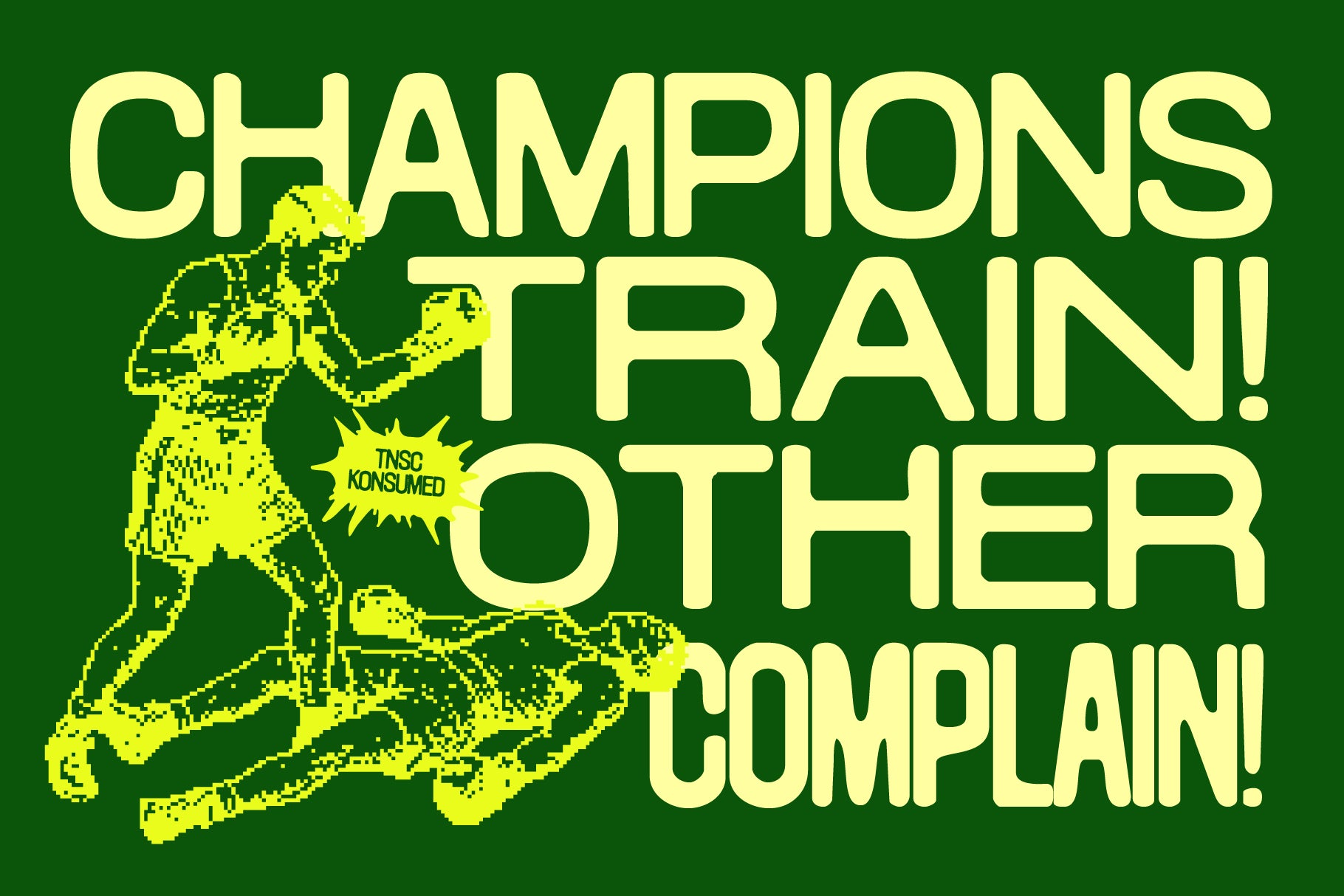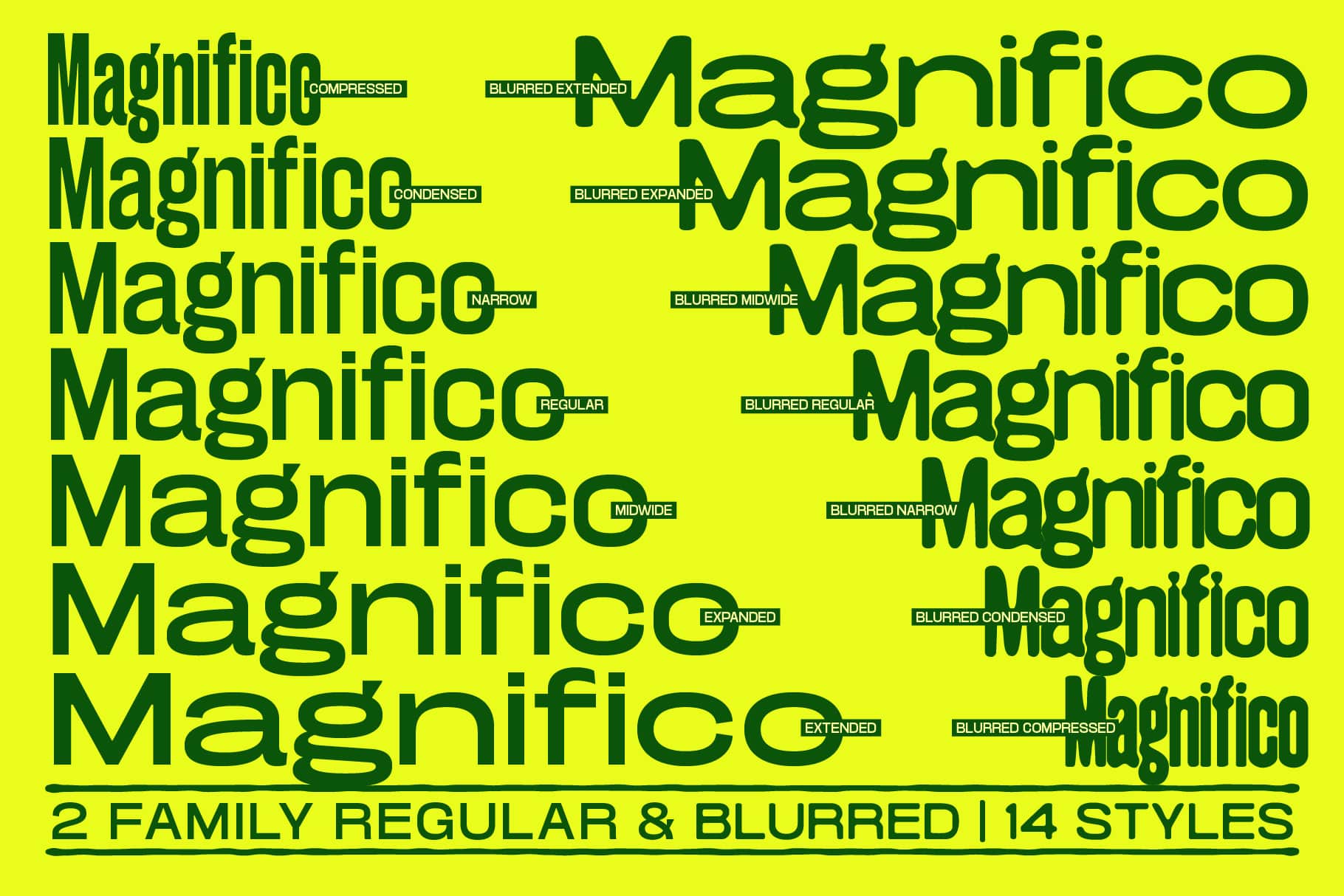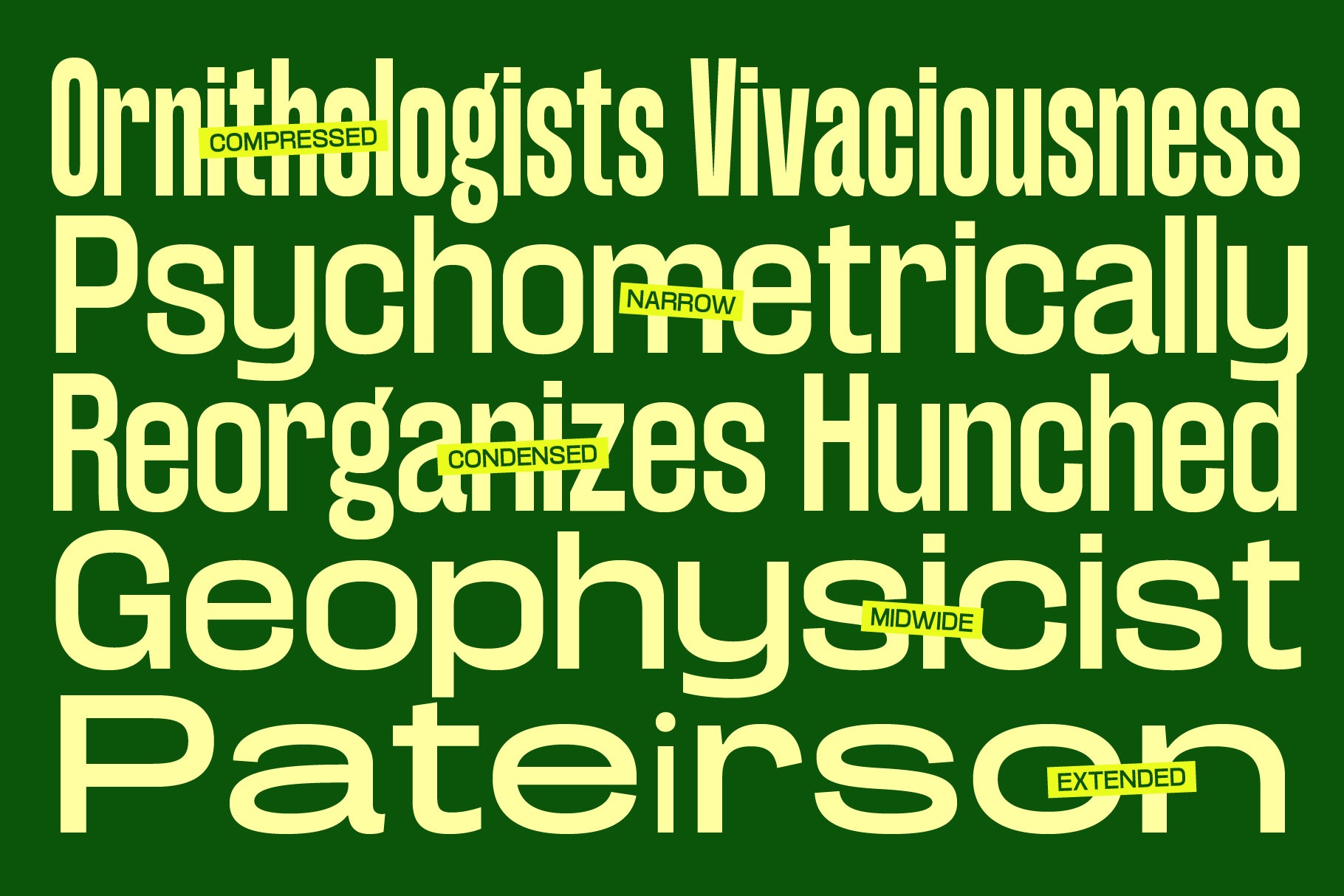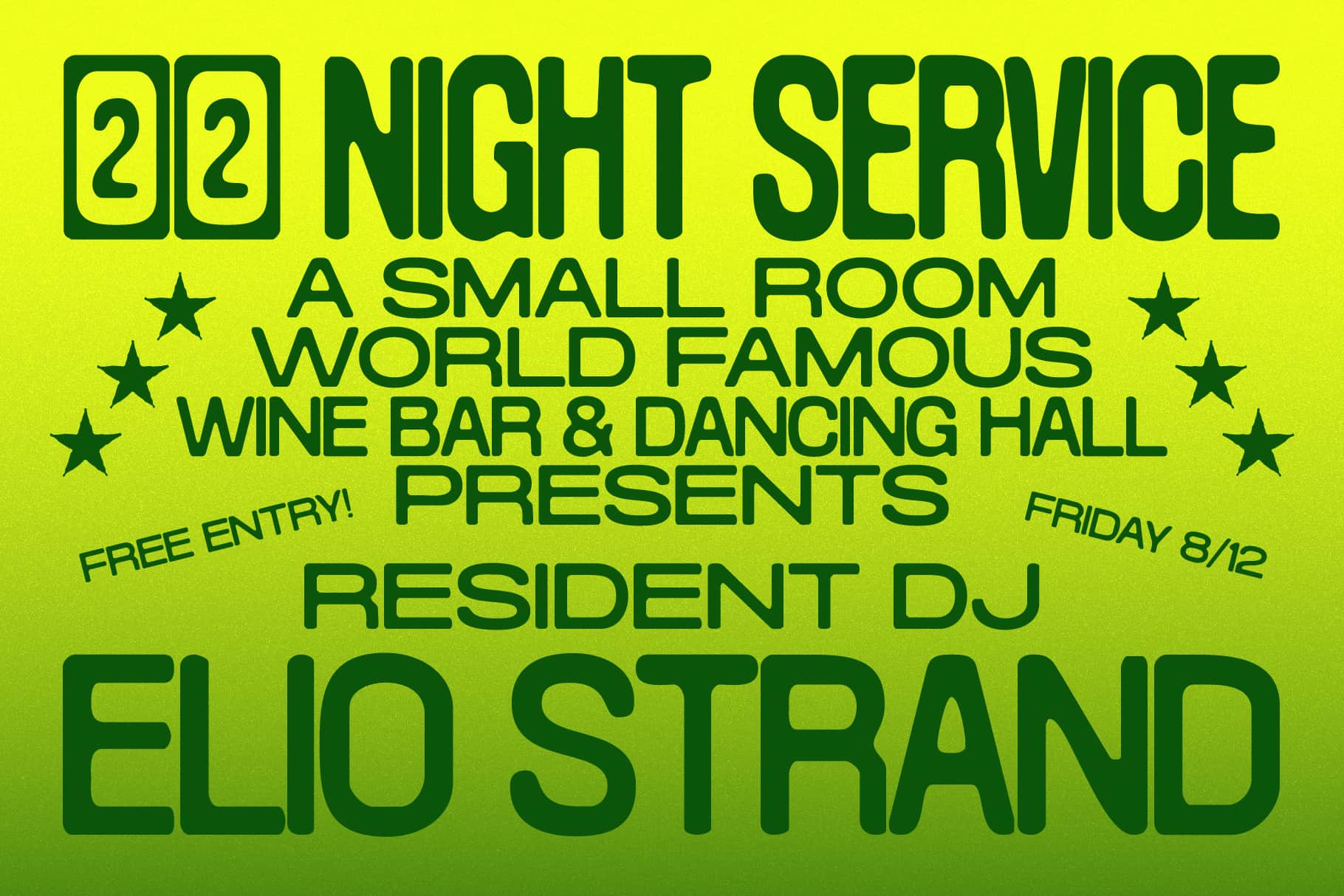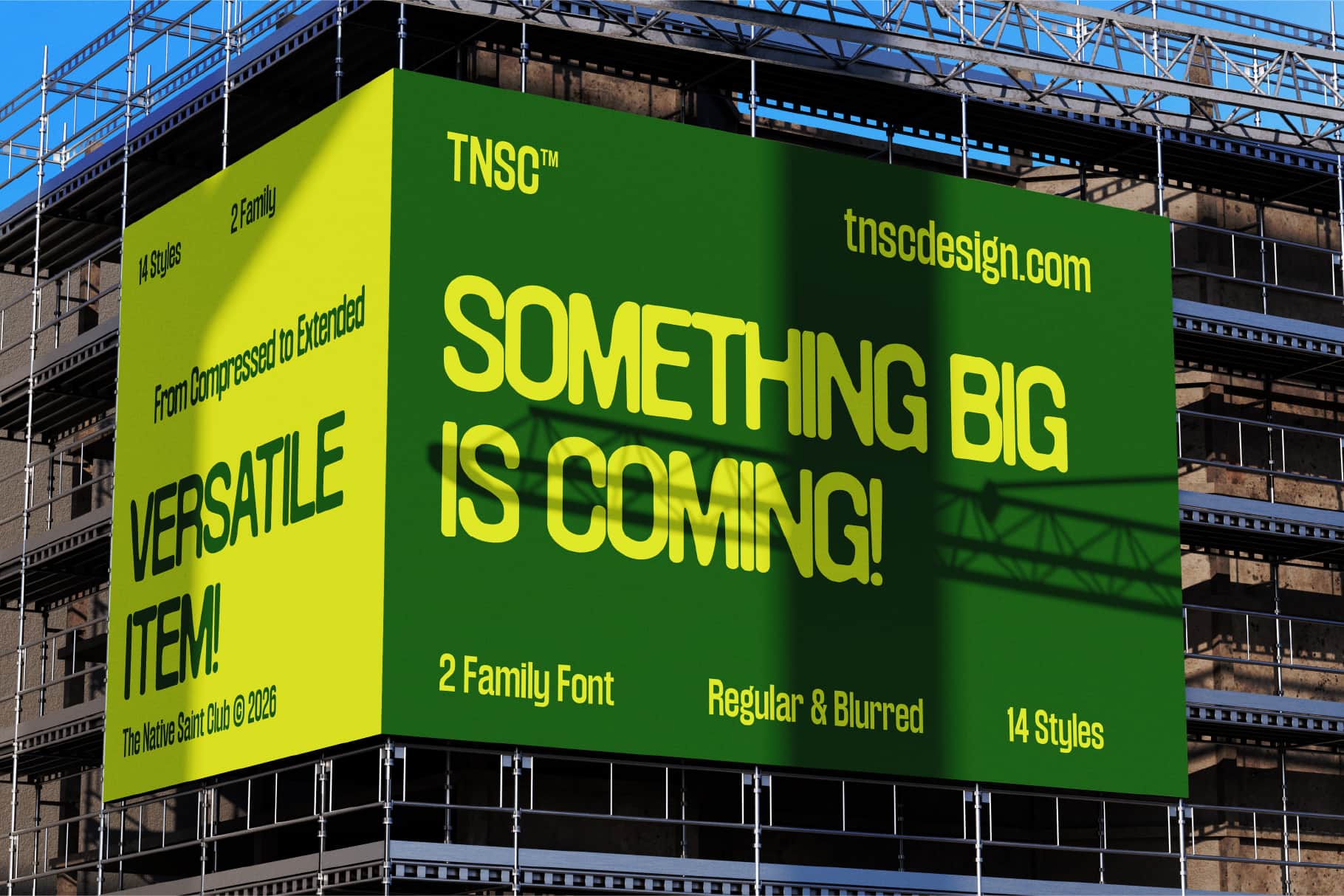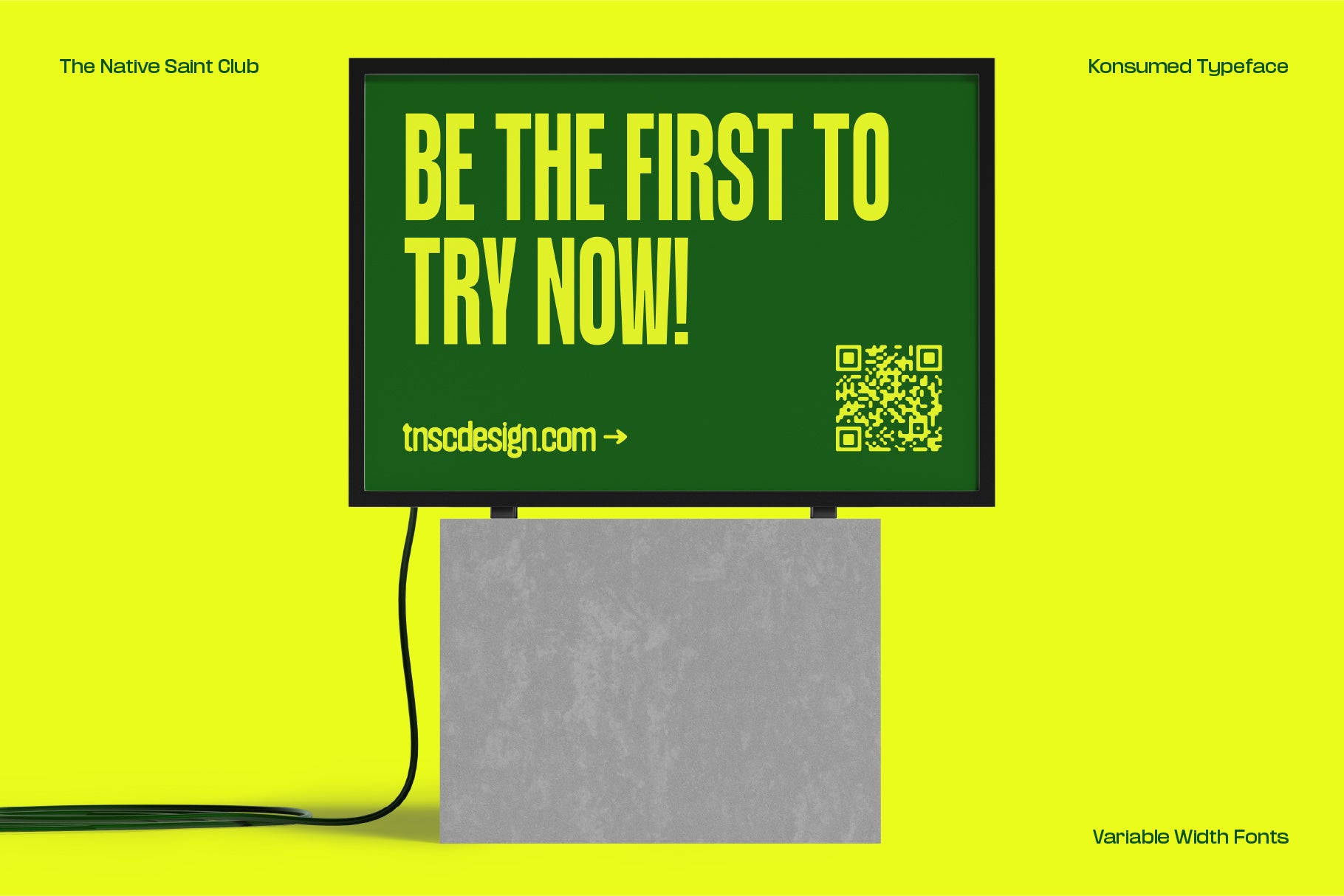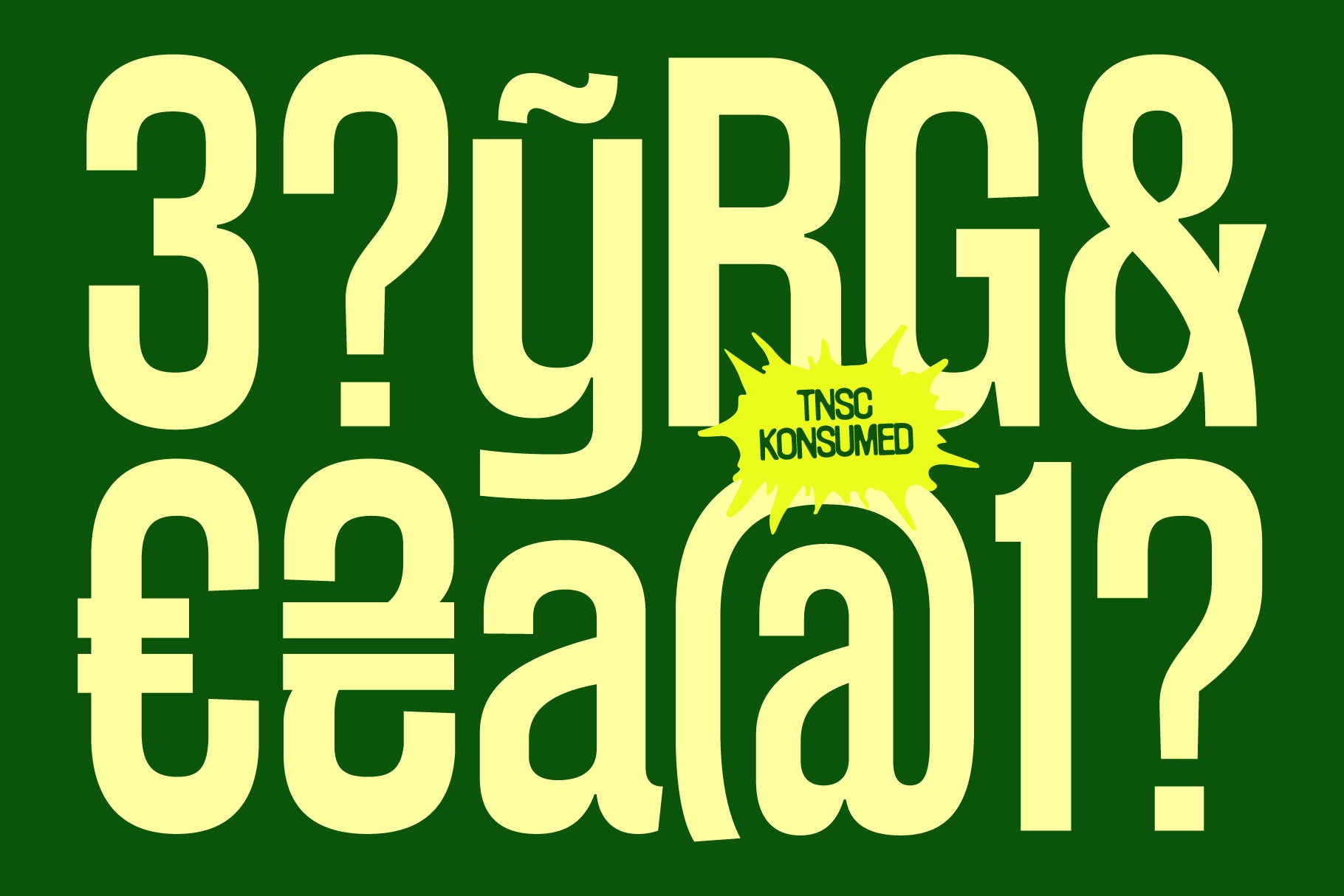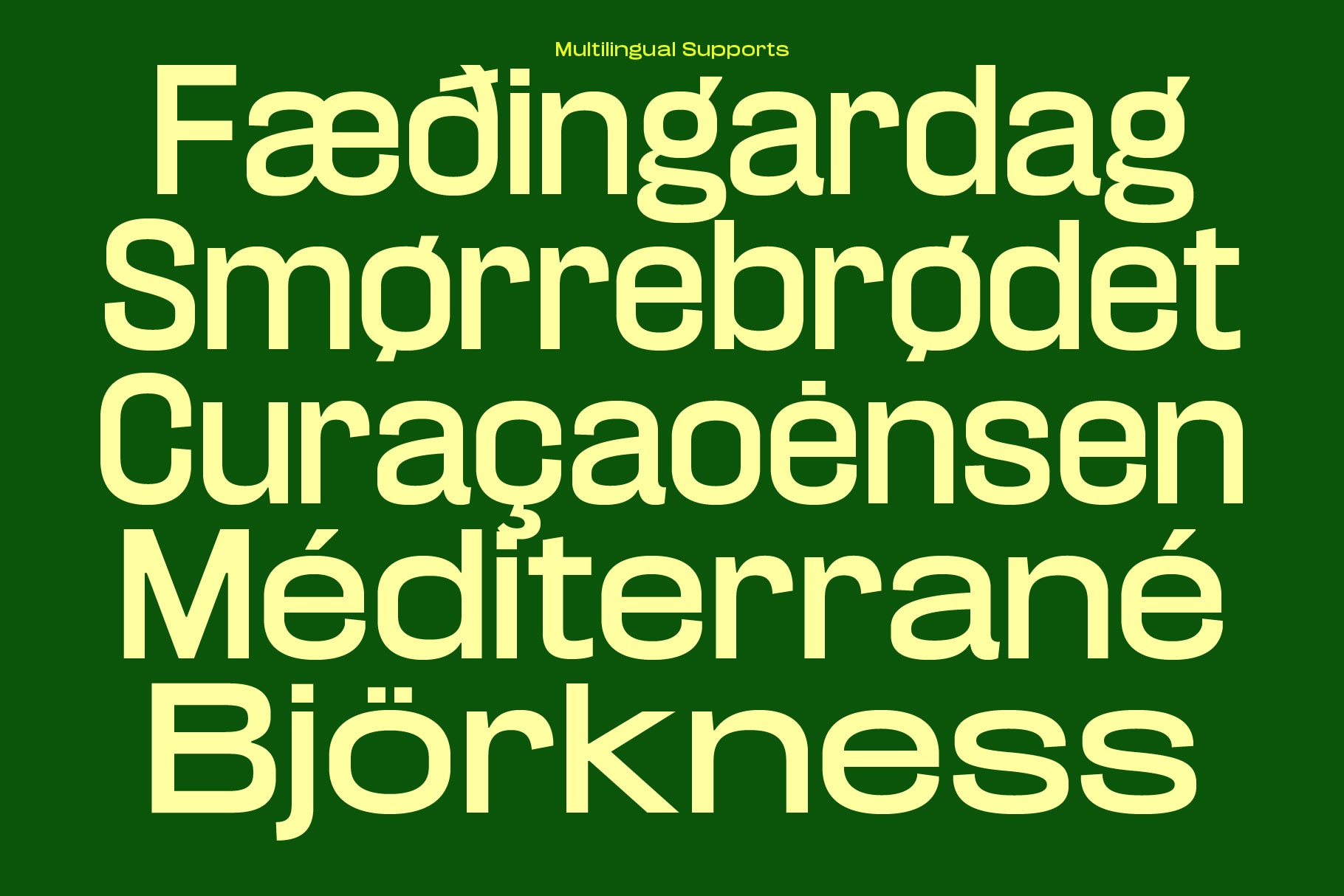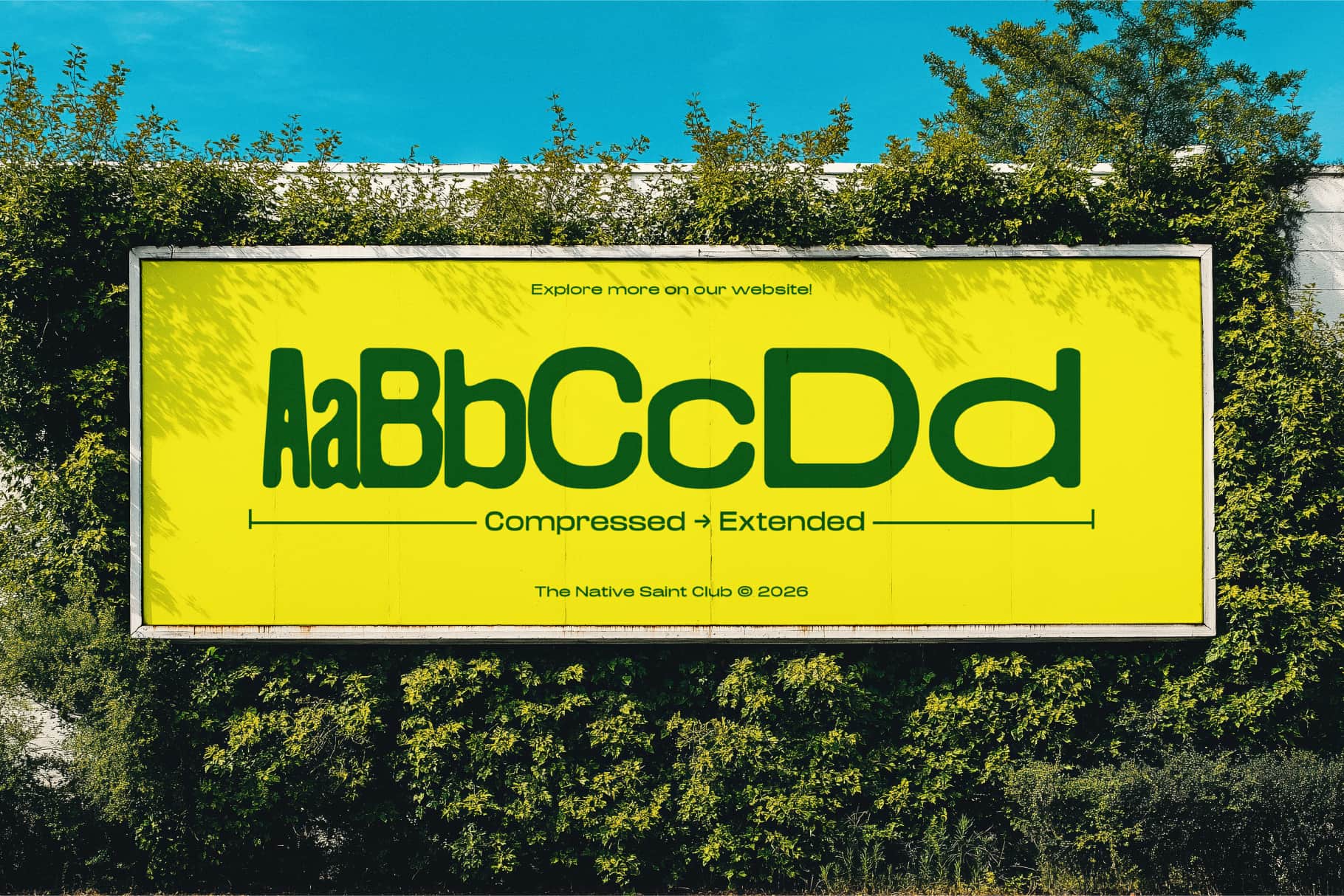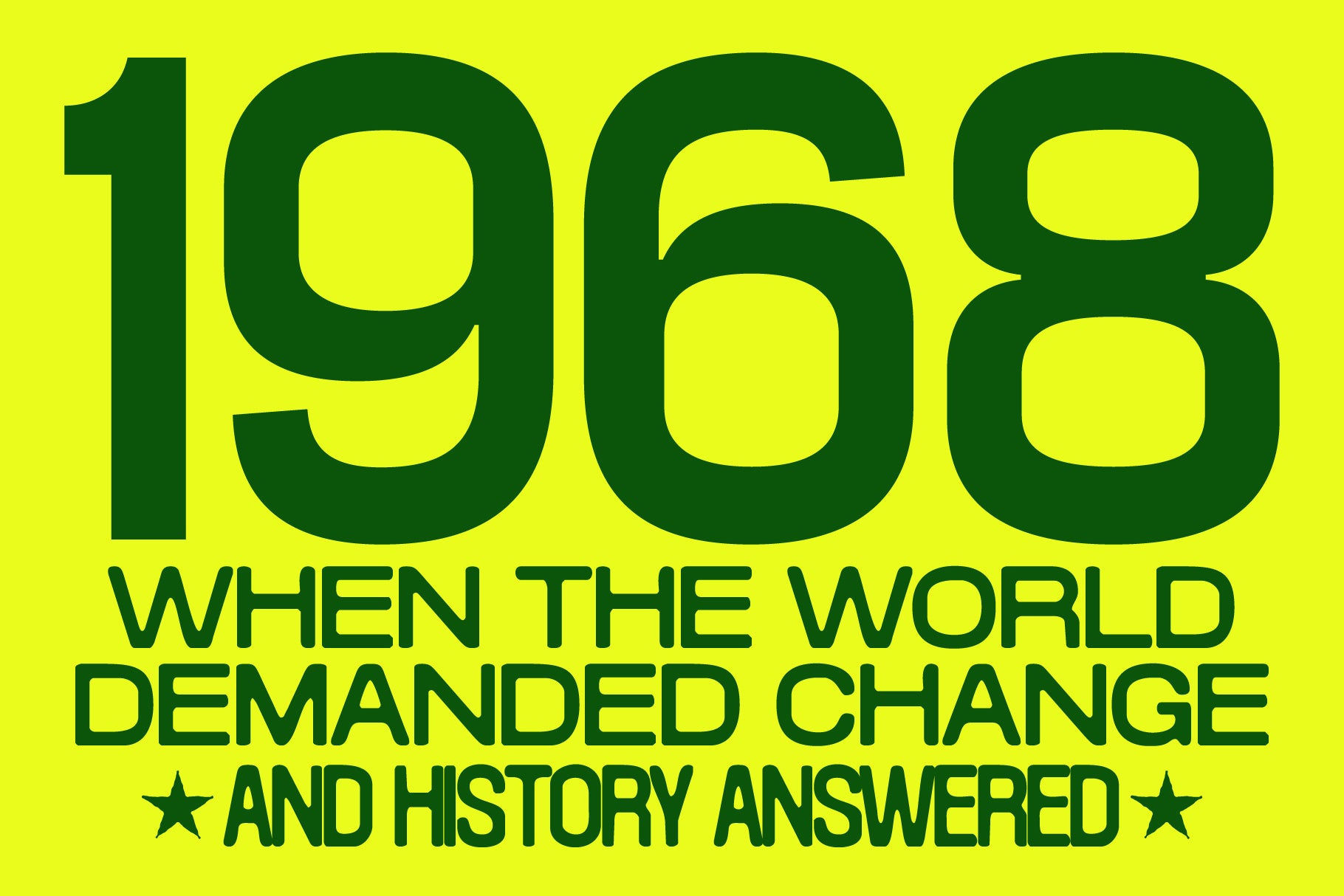
TNSC Konsumed Typeface
Konsumed is a display sans serif designed for expressive, high-impact visual work. The family pairs regular and blurred styles, letting you move from clean, solid typography to dynamic soft-focus effects within a single cohesive system — a range that opens up visual storytelling possibilities most typefaces simply can't offer.
A flexible width system running from compressed to extended gives you full control over density and rhythm, making Konsumed equally effective in tight headline stacks and expansive display settings. Perfect for posters, branding, editorial design, sports graphics, packaging, and digital projects where typography carries the visual weight.
• 518 Glyphs
• 14 Styles (Compressed, Condensed, Expanded, Extended, Midwide, Narrow, Regular, Blurred Compressed, Blurred Condensed, Blurred Expanded, Blurred Extended, Blurred Midwide, Blurred Narrow, Blurred Regular)
• Lowercase
• Diacritics
• Ligatures
• Numerals (5 sets)
• Symbols
• Currency
• Mathematics
• Arrows